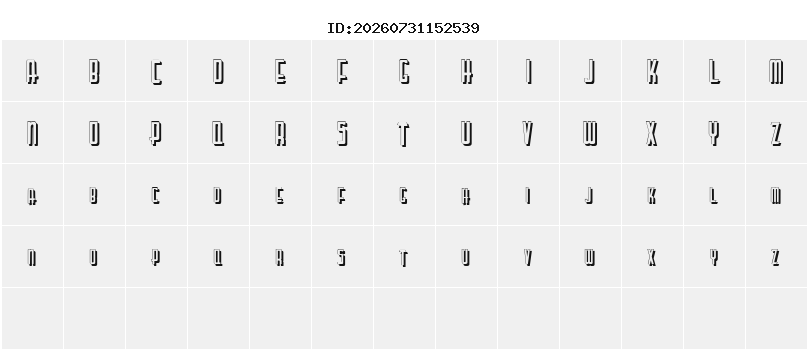
• Font Name: LetteringDecoShadow
• Designer: Iza W
• Manufacturer: Iza W, Intellecta Design
LetteringDecoShadow.ttf is a modern, elegant sans-serif font designed for ultimate readability and visual harmony. Perfect for branding, headlines, web design, and print materials.